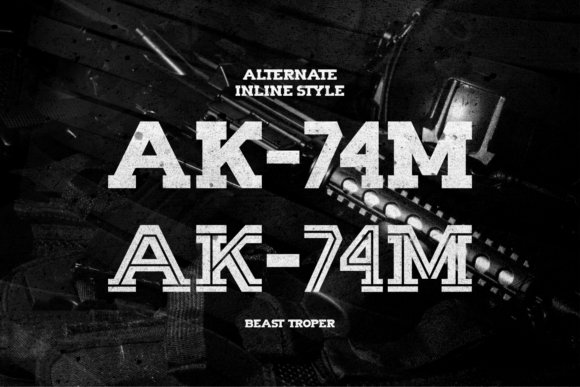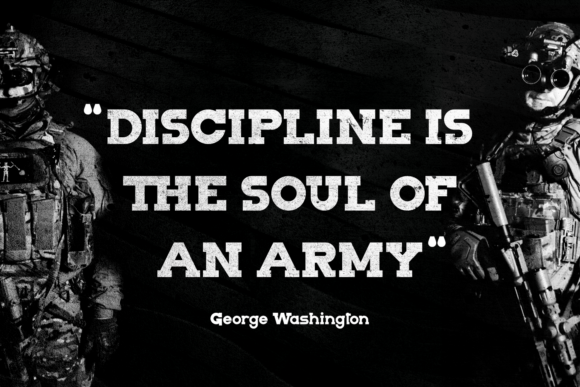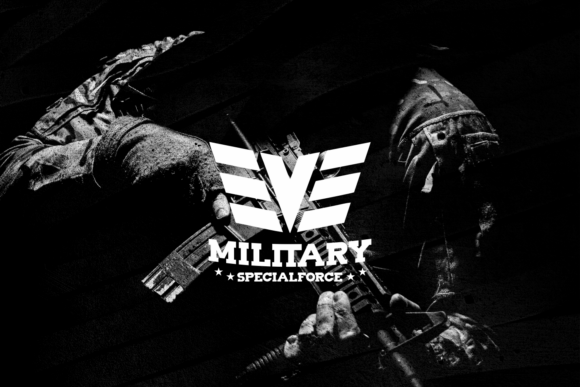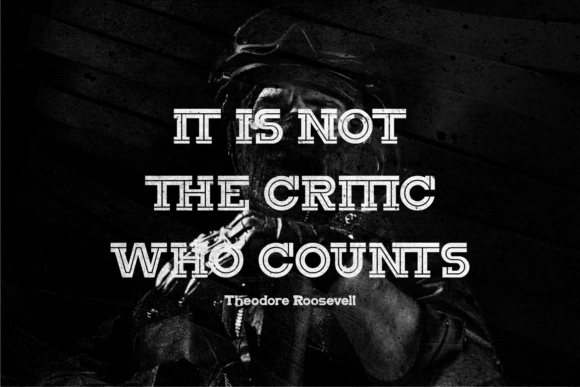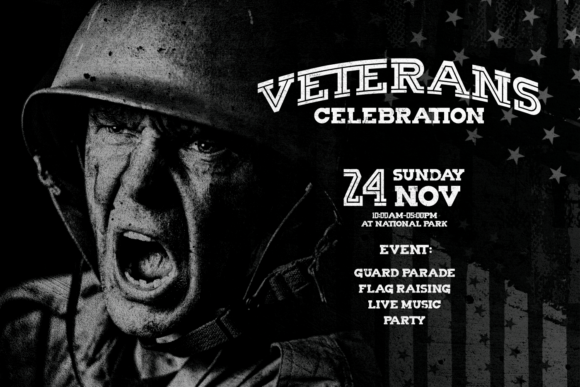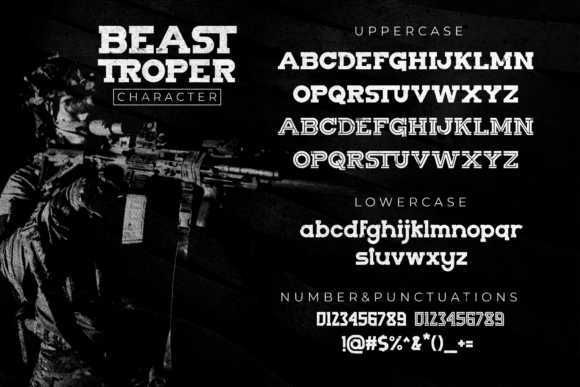
Unleash the Power of the Beast: Elevate Your Designs with a Bold Twist
Remember that moment when you stumbled upon the perfect font for your project, and it all came together in a flash of creative genius? For designers, this ‘aha’ moment is what makes all the late nights and early mornings worth it. And today, we’re excited to introduce you to a font that’s sure to give you that same thrill – the Beast Troper Font.
This bold, military-themed serif display font is not just a pretty face; it’s a versatile tool that can elevate your branding projects, logos, and advertisements to new heights. With its two styles – inline and regular – you’ll have endless possibilities to create unique and eye-catching designs that leave a lasting impression. Whether you’re working on a wedding design, social media post, or product packaging, the Beast Troper Font is the perfect companion for any project that requires a military/army theme.
Beast Troper Font Key Features
- Unique Characteristics: Beast Troper Font features a bold, futuristic design with a mix of geometric and organic shapes, giving it a distinctive and eye-catching appearance.
Beast Troper Font Review
Overall, I’d say Beast Troper Font has some unique qualities that make it stand out from the crowd. ✨ One of the things I appreciate is its playful, energetic feel, which is perfect for creating a fun and lively atmosphere in your designs. ✨ The font’s bold and colorful aesthetic is sure to grab attention and leave a lasting impression.
Another thing I like about Beast Troper Font is its versatility. ✨ It can be used in a variety of contexts, from children’s books and magazines to video games and advertising. The font’s flexibility makes it a great choice for designers who want a font that can adapt to different situations.
- ⚠️ Readability can be an issue in certain situations. The font’s bold lines and playful flair can make it difficult to read in smaller sizes or for people with visual impairments.
- ⚠️ Beast Troper Font may not be the best choice for formal or professional designs. Its playful aesthetic can come across as immature or unprofessional in certain contexts.
Overall, I’d say Beast Troper Font is a great choice for designers who want to add some fun and personality to their designs. While it may have some limitations, its unique qualities and versatility make it a great addition to any designer’s toolkit.
To get the most out of Beast Troper Font, try using it in combination with bold or italic styles to create emphasis. You can also use it in conjunction with other fonts to create a unique and eye-catching design.
Beast Troper Font is commonly used in:
- Graphic design projects
- Typography-based art
- Brand identity design
- Use Beast Troper Font as the main title font for your poster.
- Combine with bold, vibrant colors and geometric shapes to create a retro-futuristic aesthetic.